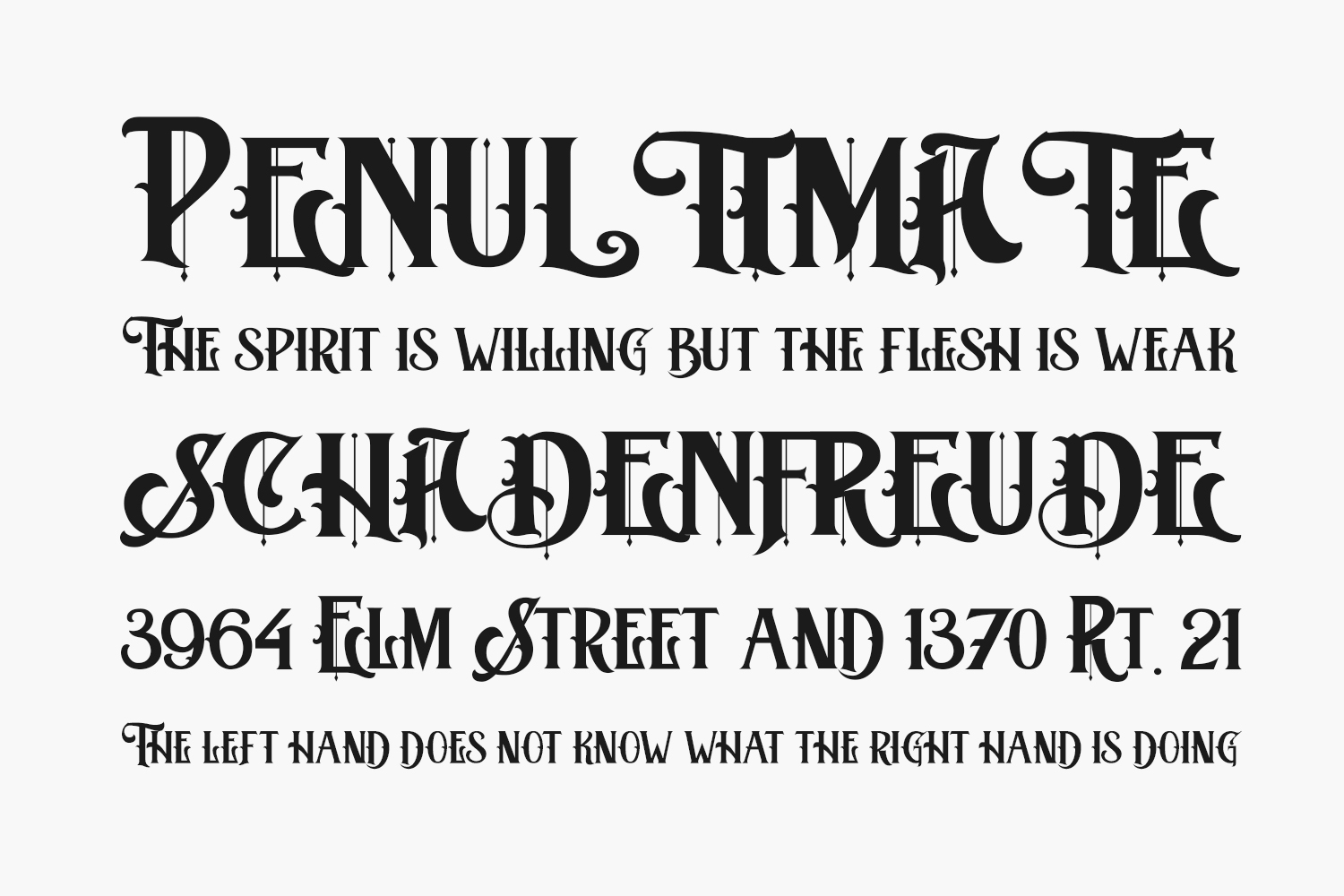
Bombaya Free Font is a bold and chunky lettered display font. Add this font to your creative ideas and notice how it will make them stand out. Bombaya Free Font was designed by Typotopia Studio and is free for personal use only. Please purchase the full version for commercial use.